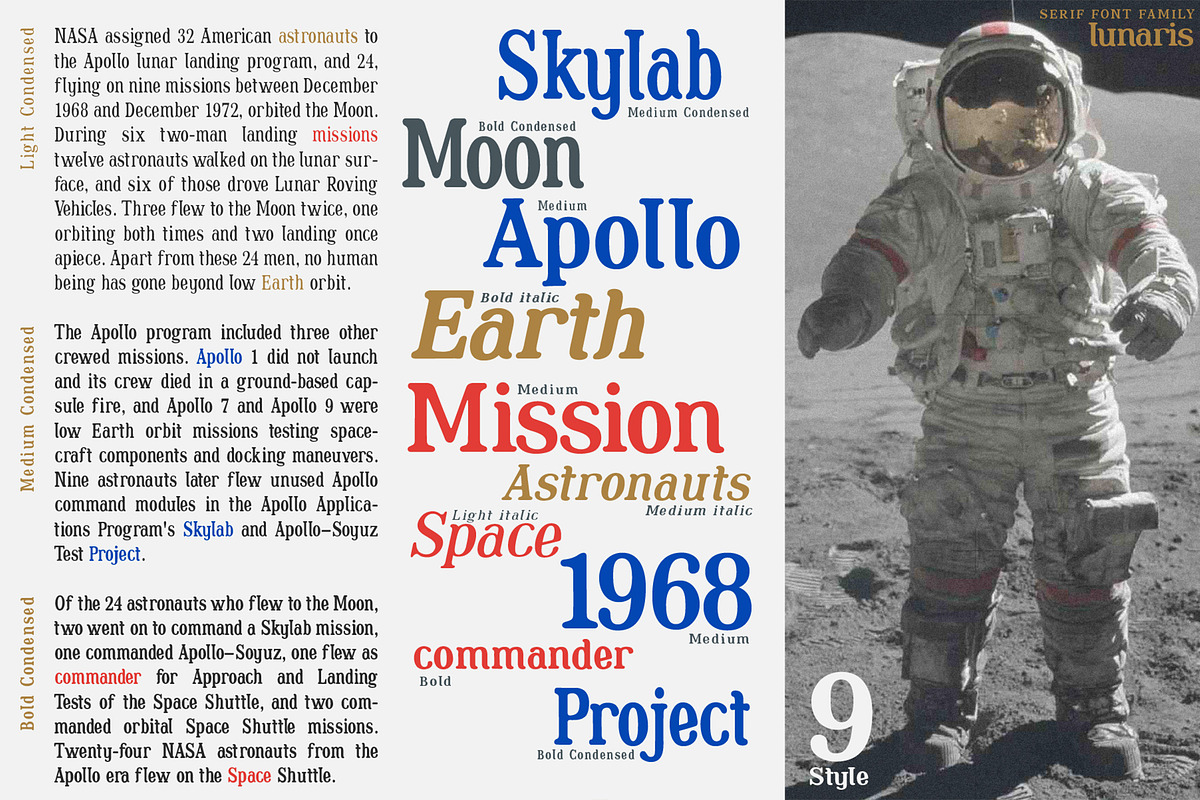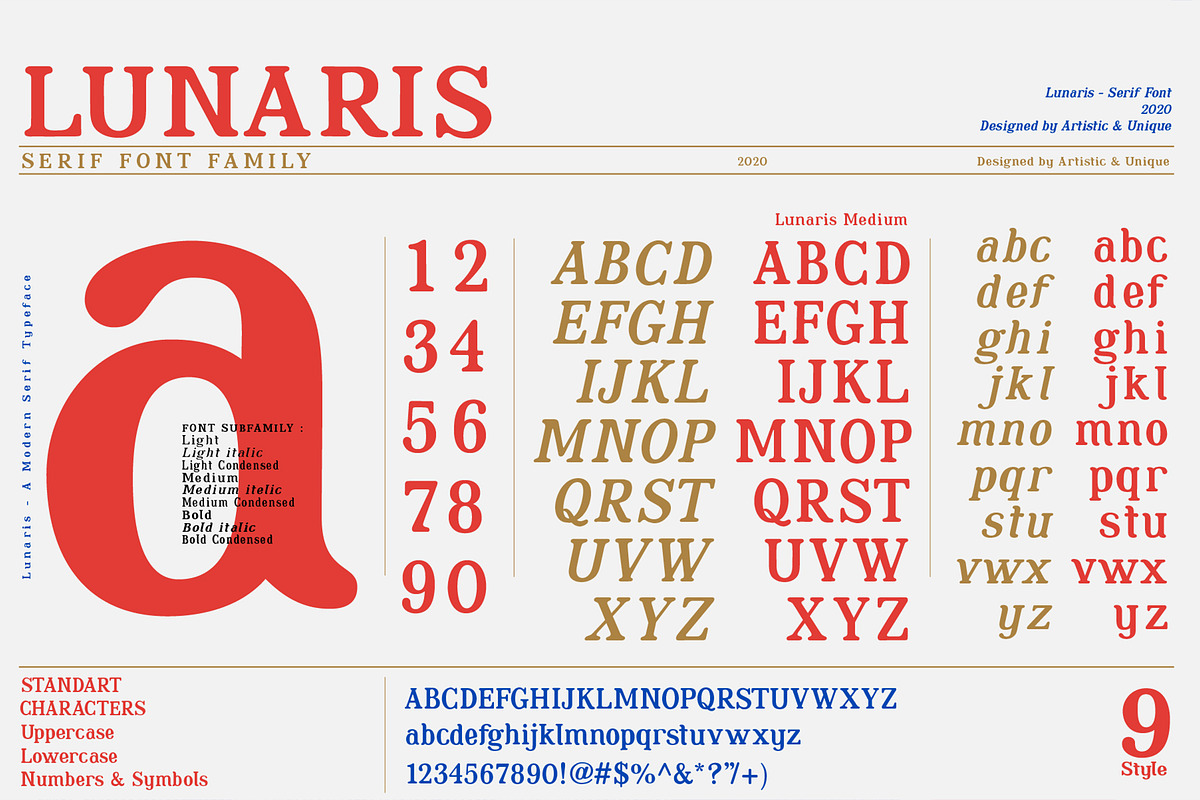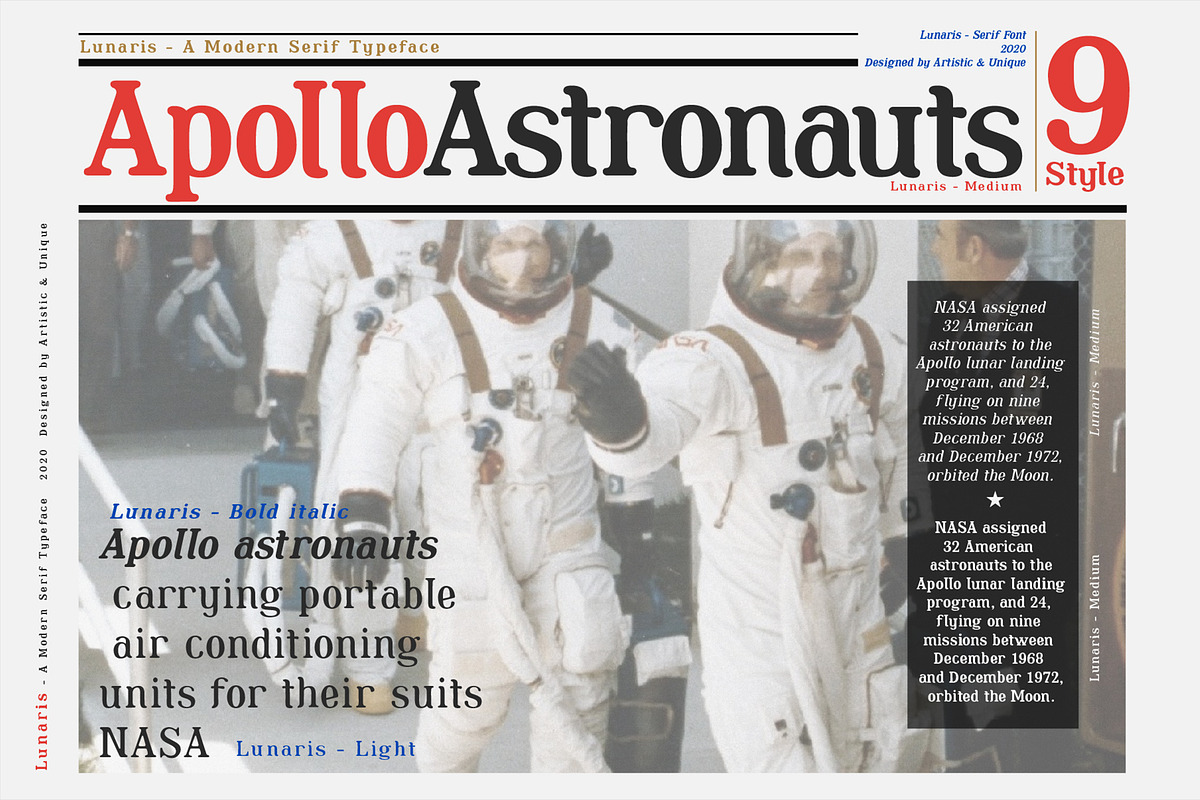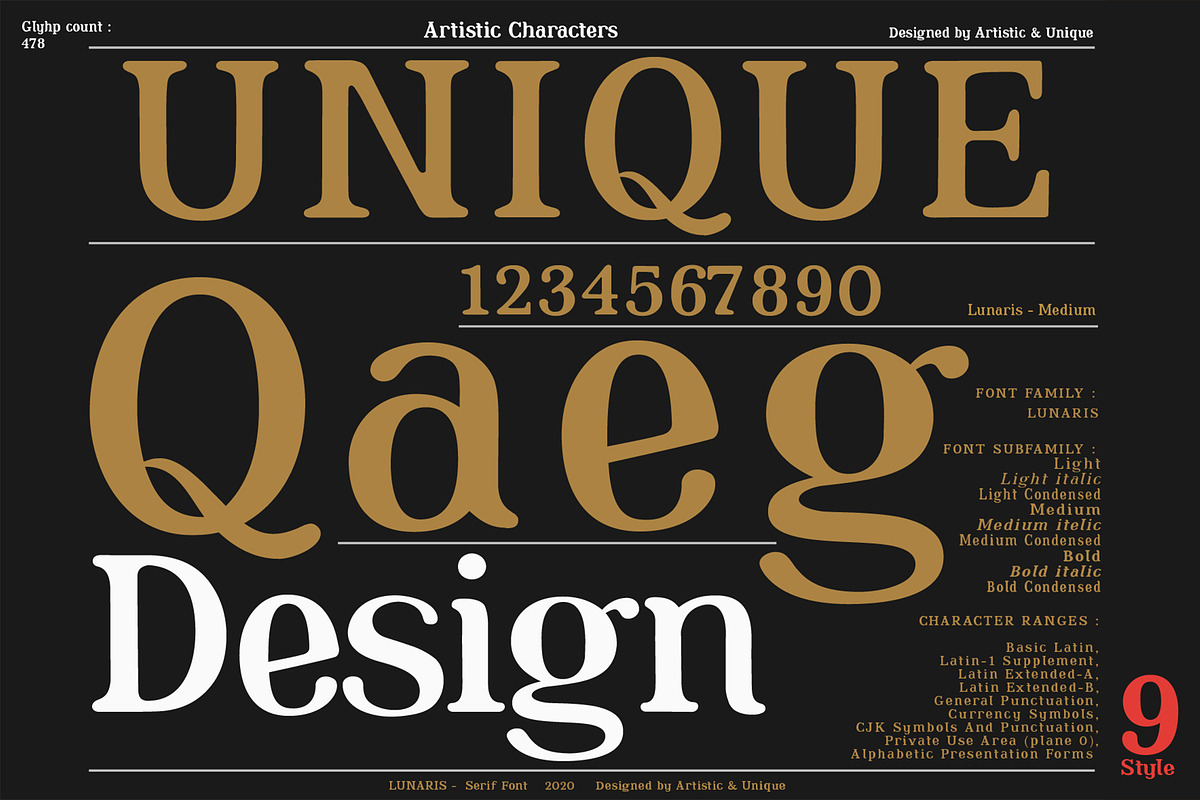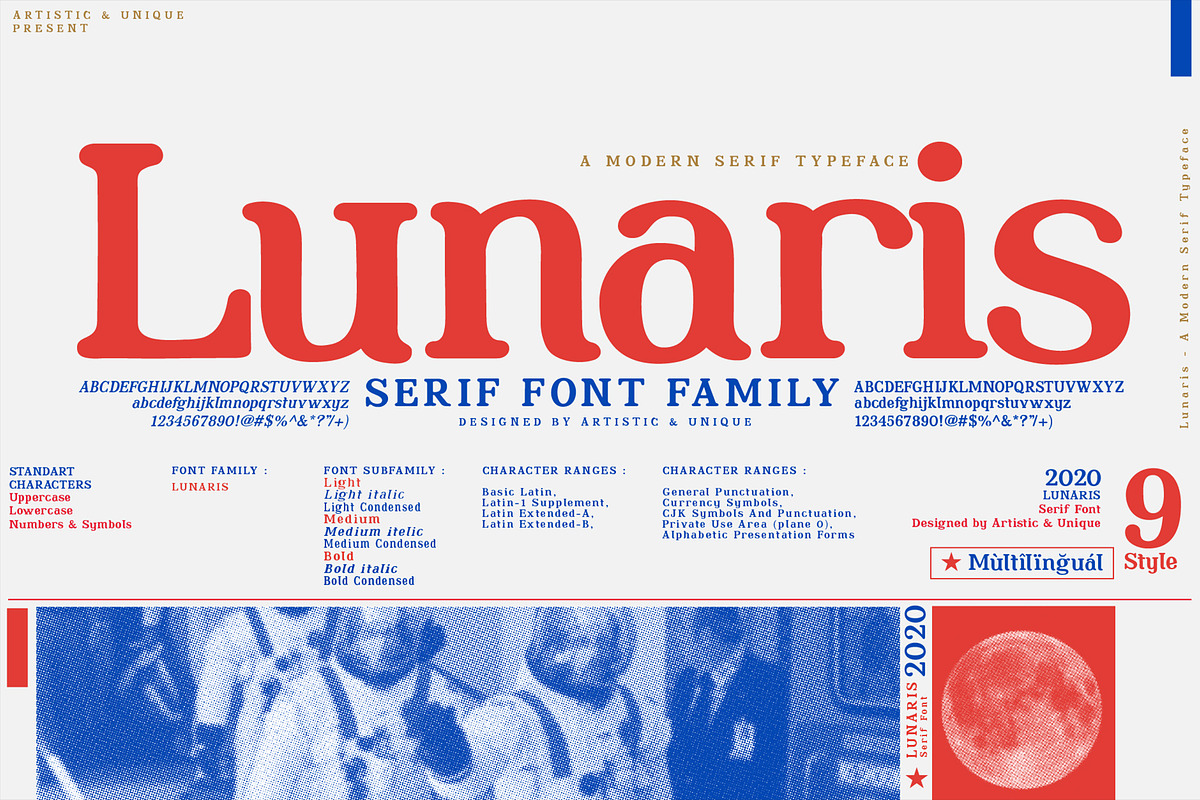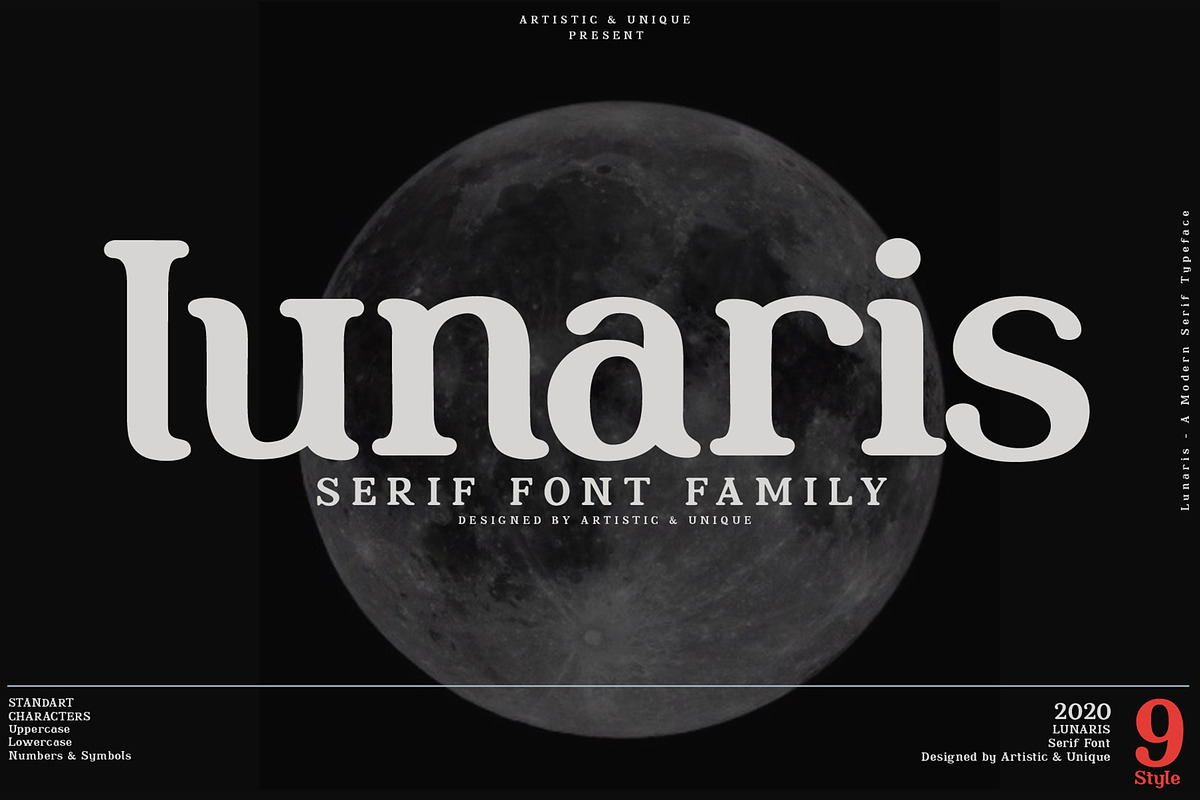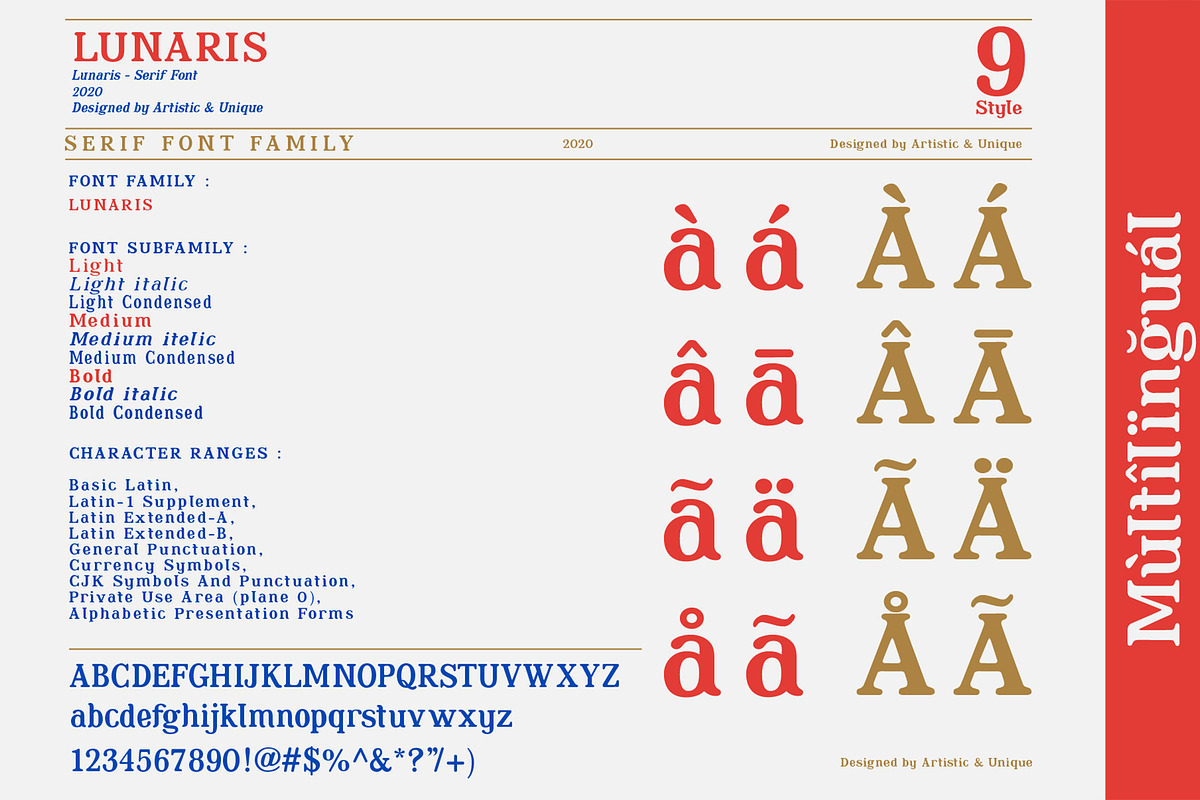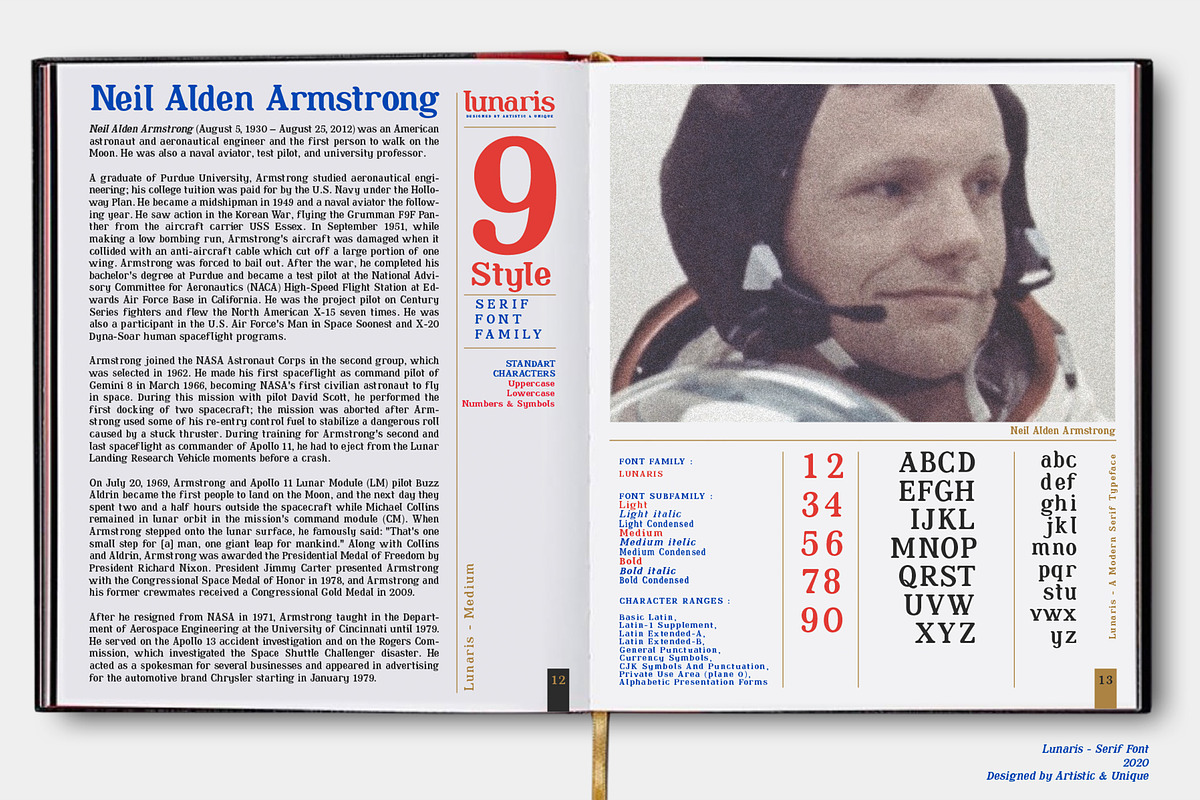
Lunaris - Serif Font Family
Lunaris - Serif Font Family - Multilingual- 9 Style (2020)
The Lunaris serif font family has an elegant character with soft curved turns. If you want to try a modern or classic, elegant appearance, it can meet all your needs with its timeless structure that is ideal for your projects with capital and small letters. Lunaris serif font is a versatile serif with a luxurious feel.
This font comes with uppercase, lowercase, punctuation, symbols and numbers, ligatures, and multilingual options.
You can easily use the Lunaris font in magazines, books, titles, websites, logos, clothing, invitations, branding, packaging, advertising, etc.